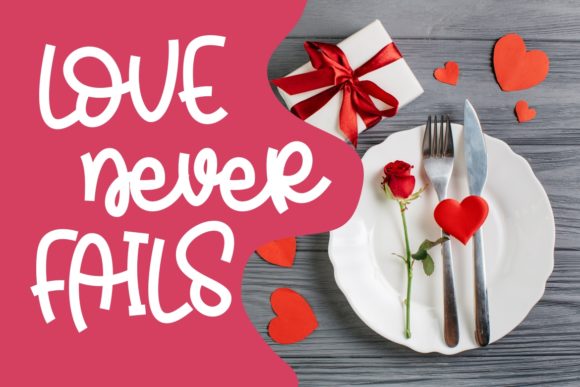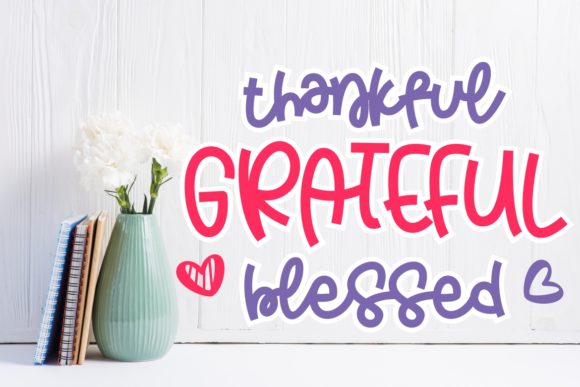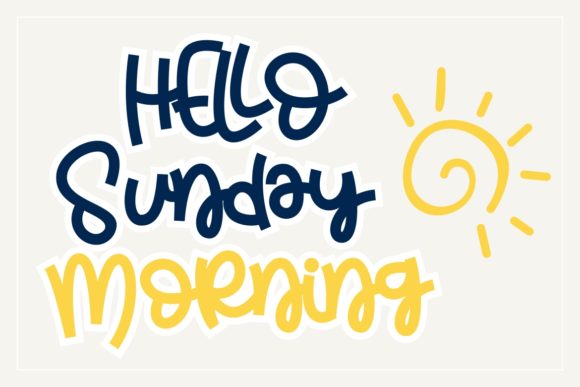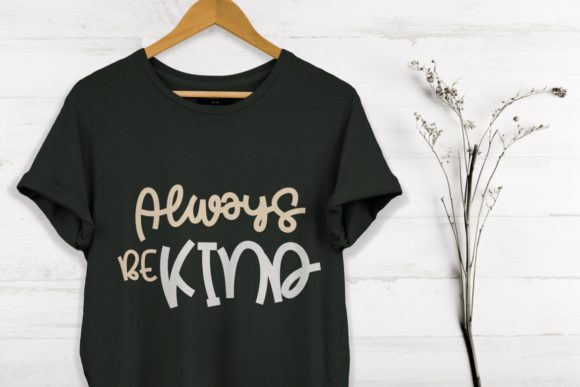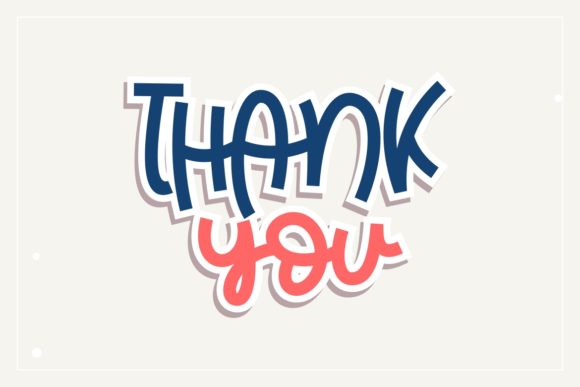
Beyond Stars Font: A Quirky Handwritten Font for Creative Projects
Are you tired of using the same old fonts for your creative projects? Look no further than Beyond Stars Font, a quirky handwritten font that is perfect for adding a touch of personality to your designs. With a full set of characters and multilingual support, Beyond Stars Font is a versatile and fun font that can be used for a wide range of projects, from quotes and shirt designs to websites, branding, logos, invitations, and more!
What Makes Beyond Stars Font So Special?
Beyond Stars Font is a unique and eye-catching font that is sure to make your designs stand out. Its quirky handwritten style gives it a playful and informal feel, making it perfect for projects that require a bit of personality. Whether you’re designing a logo, creating a website, or crafting a social media post, Beyond Stars Font is a great choice for adding a touch of whimsy and fun to your design.
Key Features of Beyond Stars Font
- Full set of characters: Beyond Stars Font includes a complete set of characters, including uppercase and lowercase letters, numbers, and punctuation marks.
- Multilingual support: This font supports multiple languages, making it a great choice for designers who work with clients from around the world.
- Quirky handwritten style: The unique and playful style of Beyond Stars Font makes it perfect for adding a touch of personality to your designs.
- Versatile: Beyond Stars Font can be used for a wide range of projects, from quotes and shirt designs to websites, branding, logos, invitations, and more!
Beyond Stars Font is a great choice for designers and crafters who are looking for a unique and versatile font to add to their collection. Whether you’re creating digital designs or handmade crafts, this font is sure to inspire your creativity and add a touch of personality to your projects.
Ideas for Using Beyond Stars Font
So, what can you create with Beyond Stars Font? Here are a few ideas to get you started:
- Quotes and posters: Use Beyond Stars Font to create eye-catching quotes and posters that are sure to grab attention.
- Shirt designs: Add a touch of personality to your shirt designs with this fun and quirky font.
- Websites and blogs: Use Beyond Stars Font to add a touch of whimsy and fun to your website or blog.
- Branding and logos: Create a unique and memorable brand identity with Beyond Stars Font.
- Invitations and greeting cards: Add a touch of personality to your invitations and greeting cards with this beautiful handwritten font.
Tips for Using Beyond Stars Font
Here are a few tips for getting the most out of Beyond Stars Font:
- Experiment with different colors: Beyond Stars Font looks great in a variety of colors, so don’t be afraid to experiment and find the perfect color for your design.
- Pair with other fonts: Try pairing Beyond Stars Font with other fonts to create a unique and eye-catching design.
- Use for headlines and titles: Beyond Stars Font is perfect for headlines and titles, where its quirky style can really shine.
Beyond Stars Font is a quirky and versatile handwritten font that is perfect for designers and crafters who are looking for a unique and eye-catching font to add to their collection. With its full set of characters, multilingual support, and quirky style, this font is sure to inspire your creativity and add a touch of personality to your designs. So why wait? Download Beyond Stars Font today and start creating!